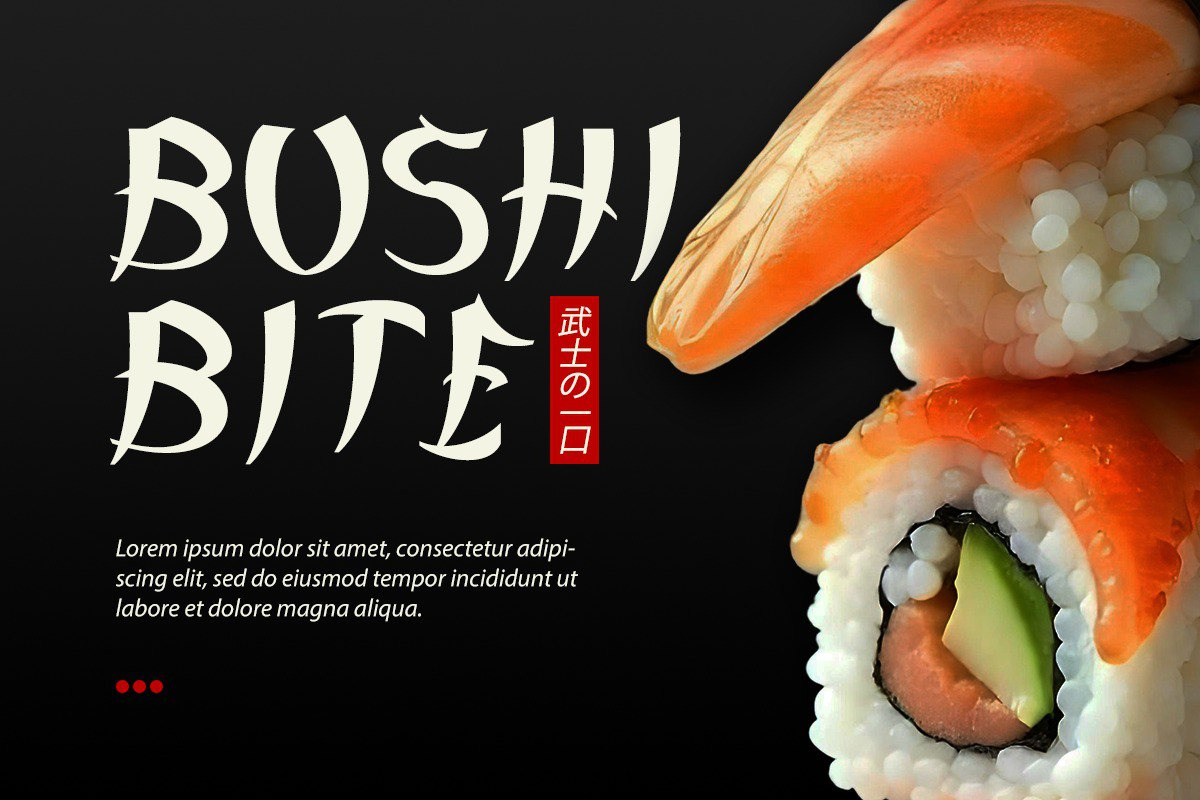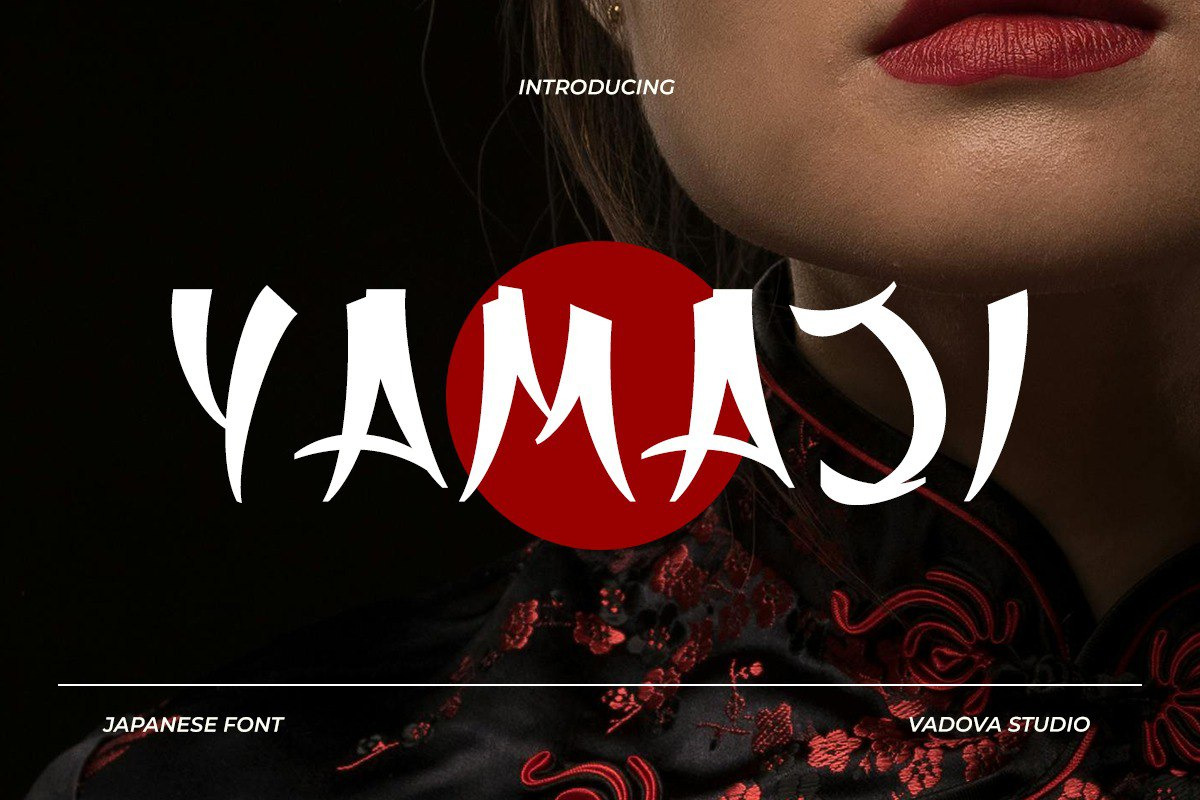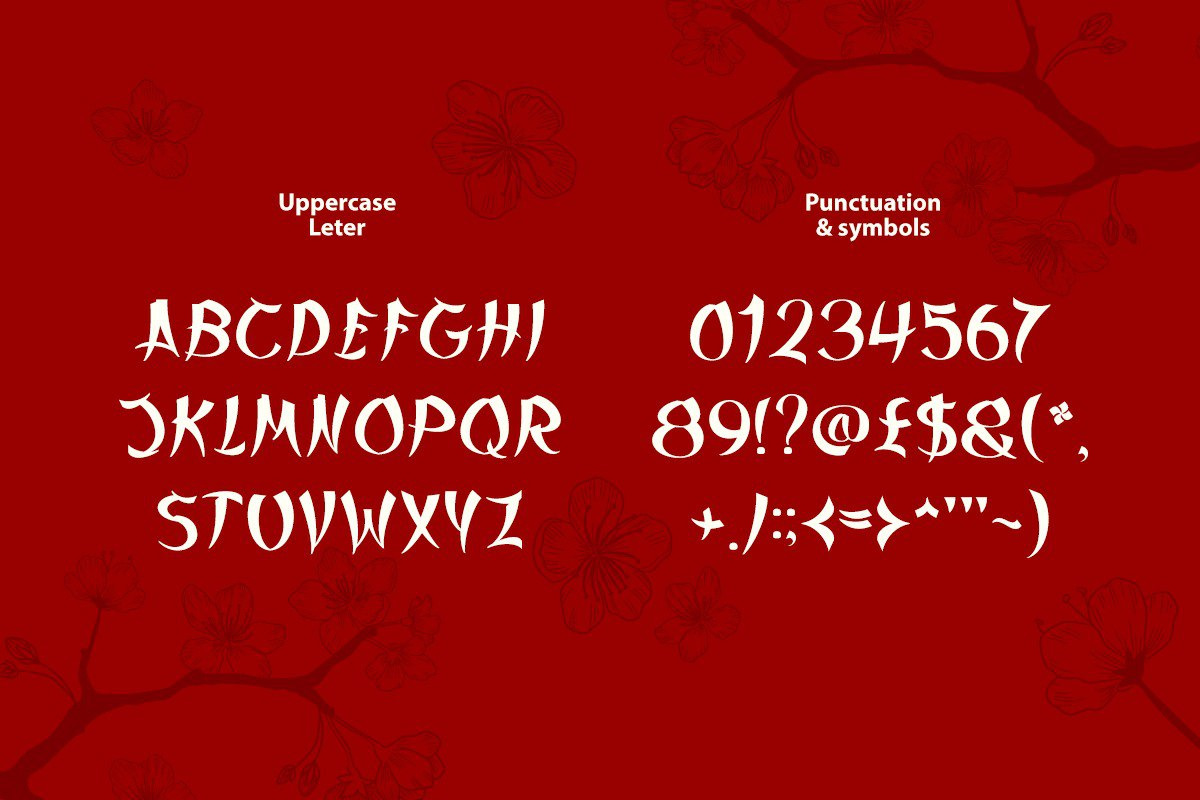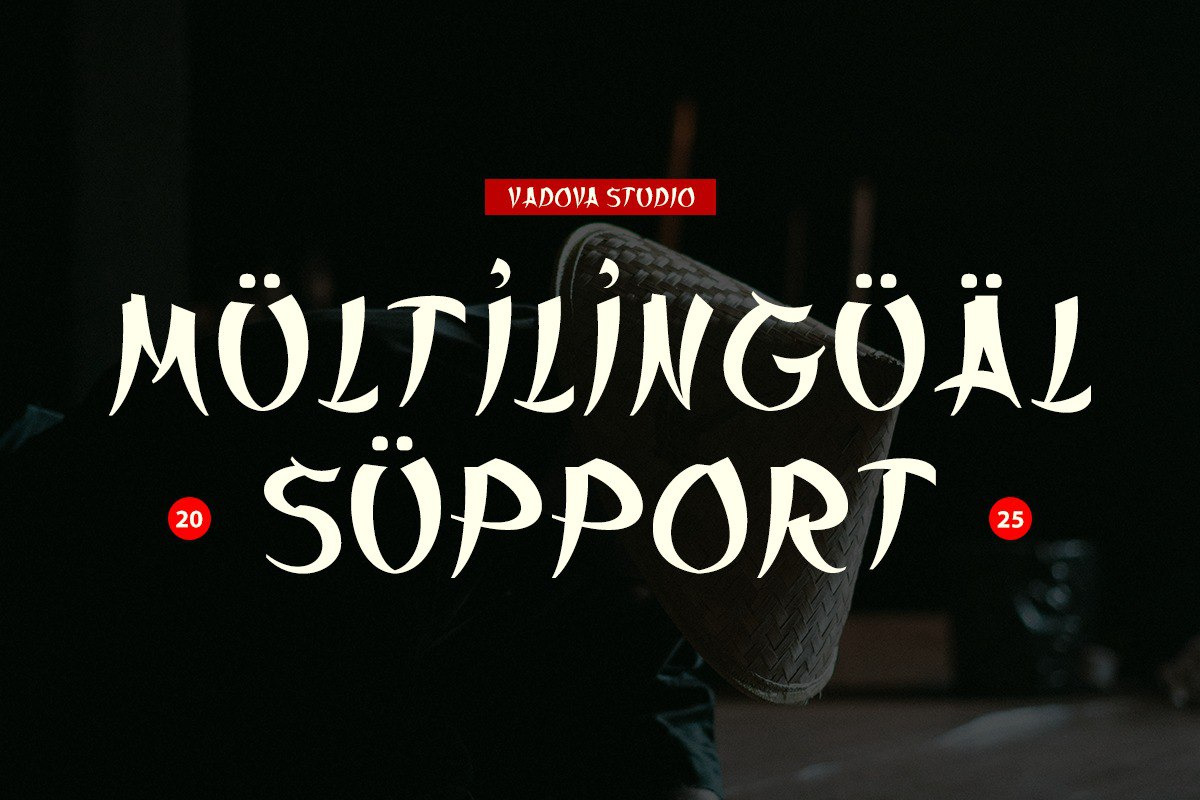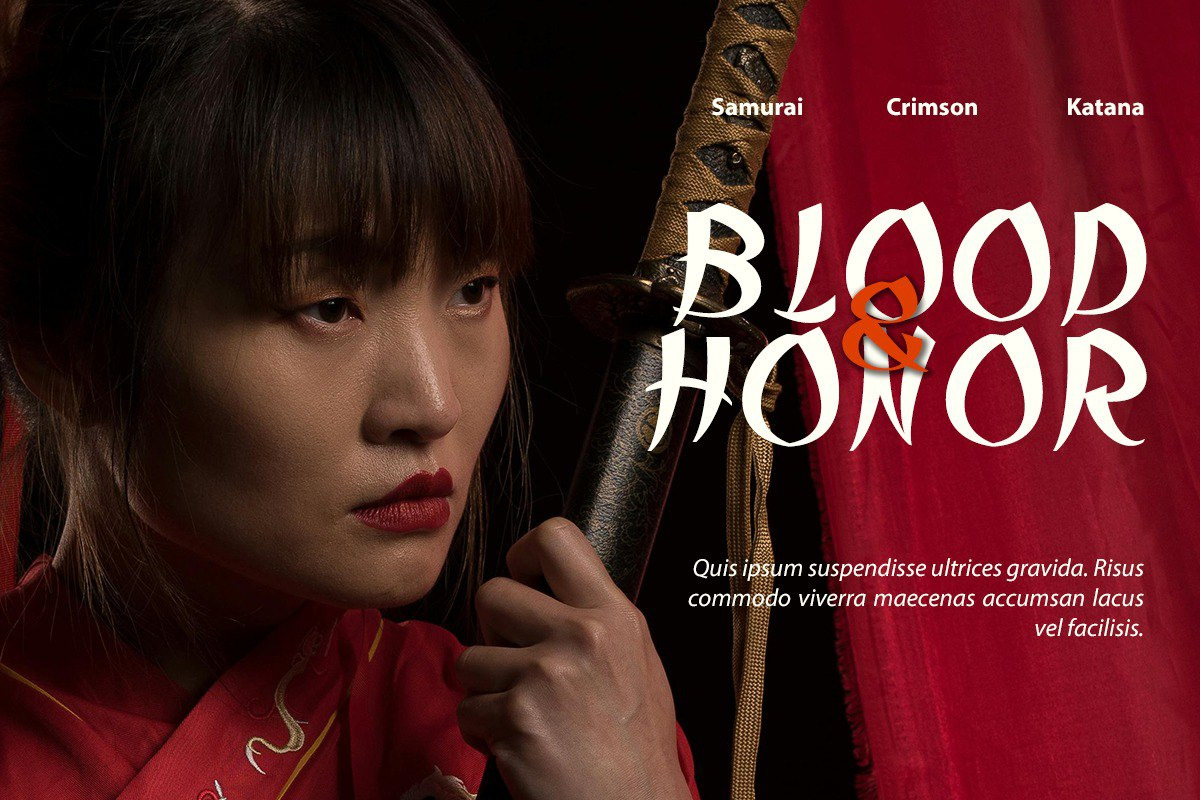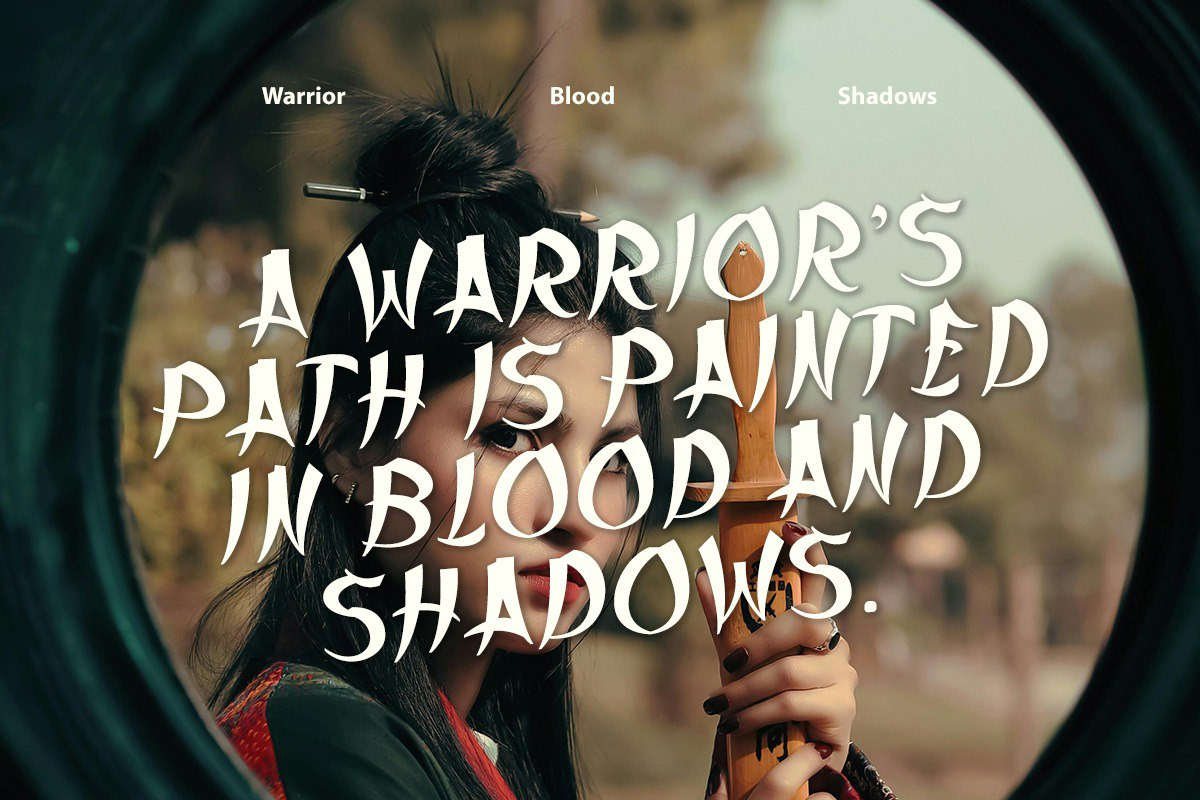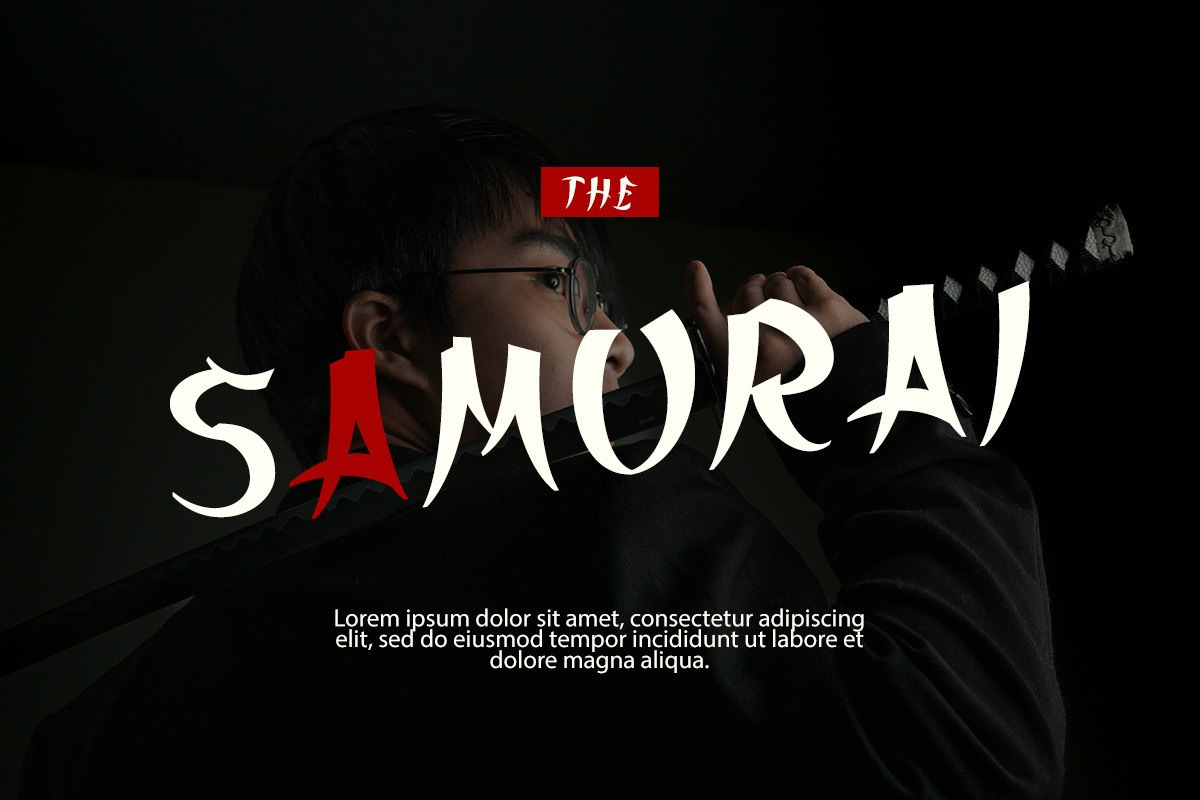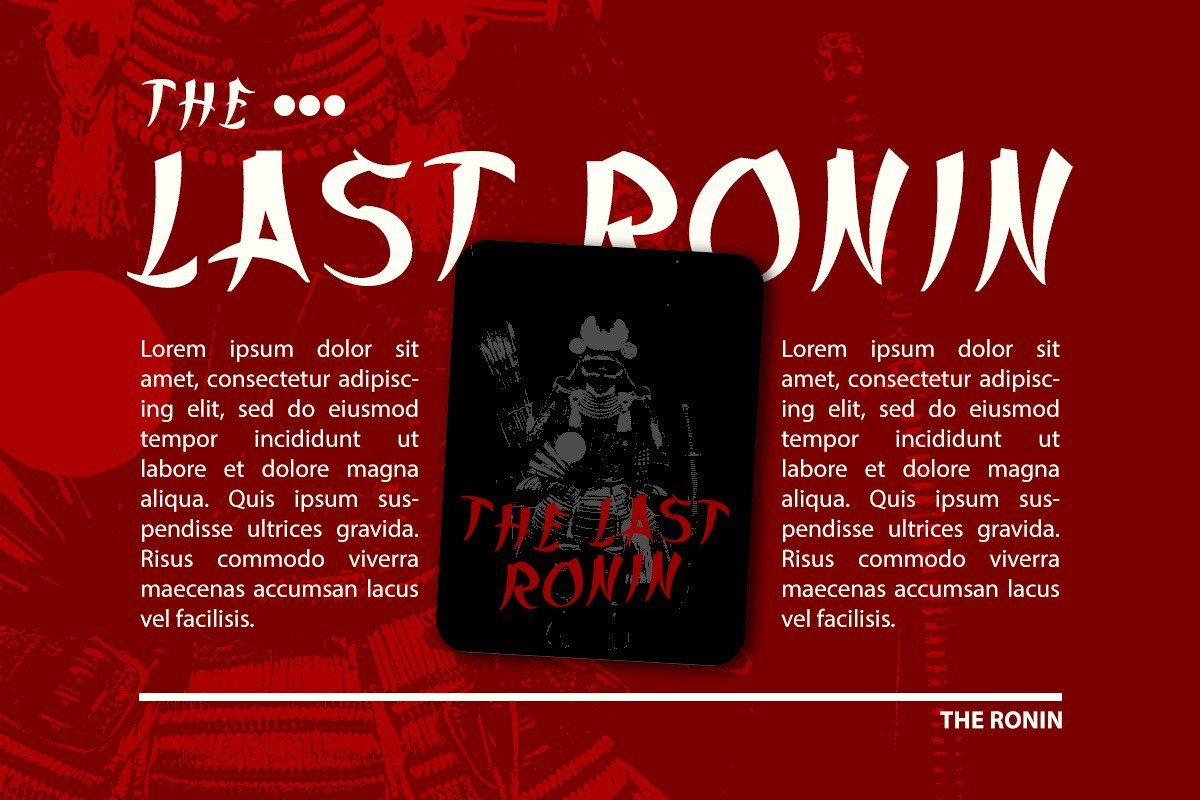
Yamaji – Japanese Display Font
Yamaji is a bold Japanese-inspired display font that embodies the essence of oriental brush artistry and powerful motion. Designed by Vadova Studio, this typeface merges sharp brush strokes with geometric control, capturing the duality of discipline and fluidity found in traditional Japanese calligraphy.
Every character in Yamaji feels alive — with tapering edges, sweeping curves, and dynamic rhythm that evokes the intensity of samurai brushwork. The high contrast between thick and thin strokes delivers dramatic visual impact while maintaining modern readability, making it ideal for cinematic titles, brand identities, and striking visual campaigns.
With its balance of heritage and boldness, Yamaji stands as a modern interpretation of oriental typography — expressive, elegant, and full of character. Whether used for Japanese restaurant logos, martial arts posters, or film branding, Yamaji brings depth, authenticity, and emotion to your design.
- Uppercase display font with Japanese brush-inspired form
- Bold, angular, and expressive letterforms with organic curves
- Infused with oriental energy and cultural artistry
- Ideal for headlines, posters, logos, and cinematic compositions
- Designed to capture modern Japanese aesthetics with timeless power
- Complete uppercase alphabet, numerals, punctuation, and symbols
- Multilingual support for extended Latin characters
Relevance and Use Cases is perfect for Japanese restaurant branding, movie posters, martial arts promotions, gaming titles, tattoo studios, cultural exhibitions, product packaging, editorial layouts, and festival campaigns. It appeals to designers seeking a bold, oriental-inspired typeface that merges authenticity with modern flair.